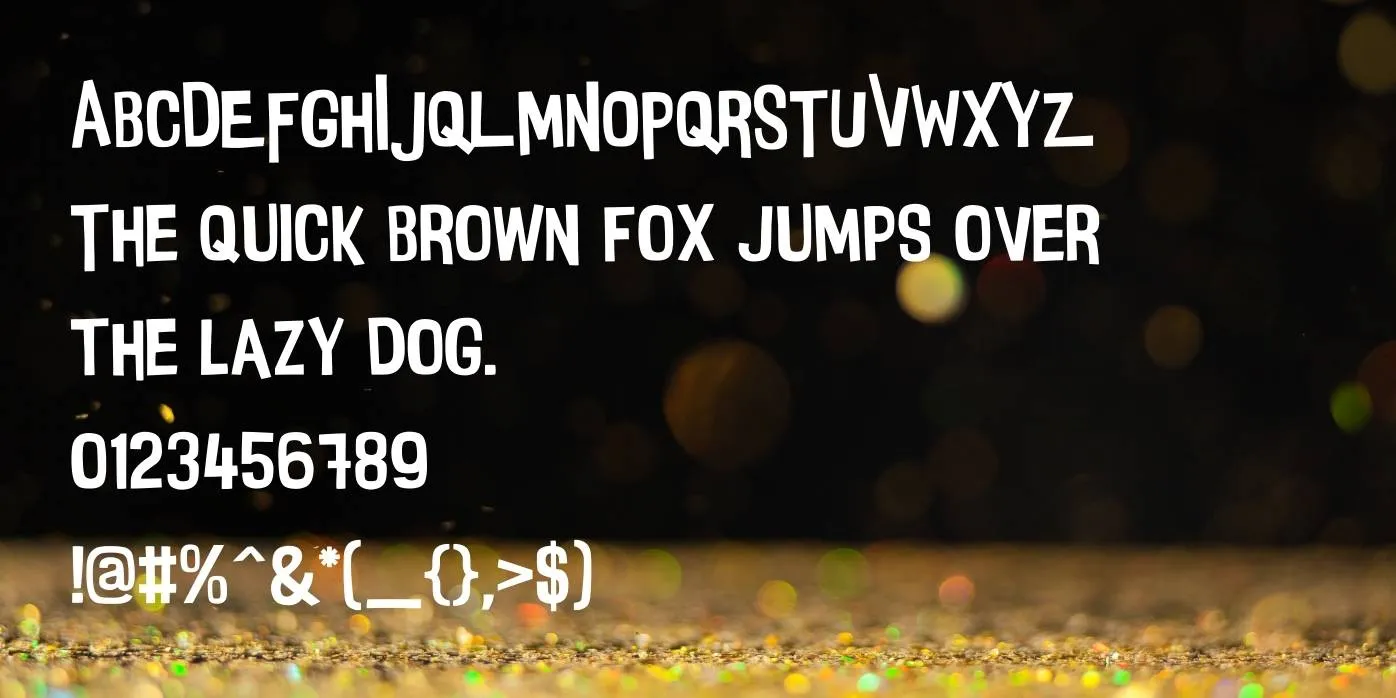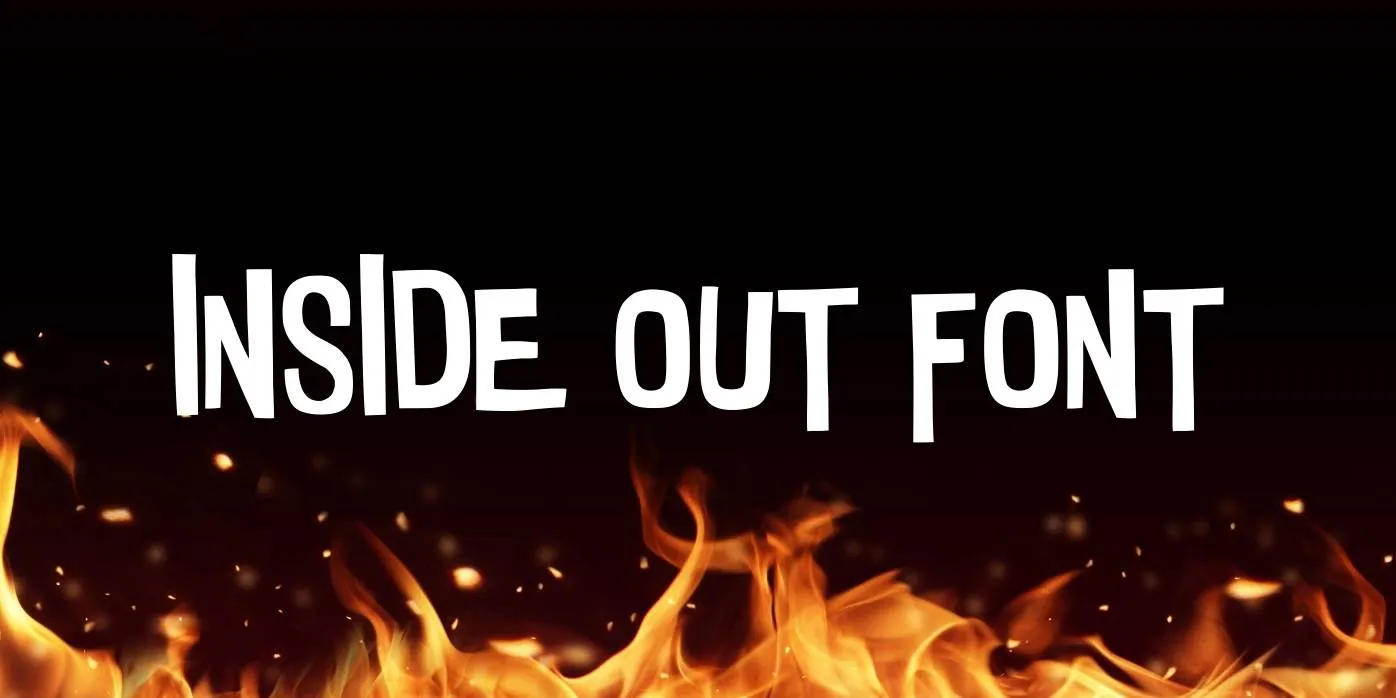
Inside Out Font
Inside out is a cartoon-type and playful font that is basically derived from a movie called “Inside Out”. The font family has TTF features and is available as free for personal use only. It is a very elegant typeface that is good for your many playful projects. The font family belongs to a Cartoon typeface family.
Inside out is an American animated movie featured by Pixar animation studio released with the help of Walt Disney Pictures in 2015. This typeface is made with very skillful craft. Some of the characters in this typeface seem Tall from x height while some of its words look small. This typeface may support many languages and accents and it is a great typeface for Logos and other playful projects as well.